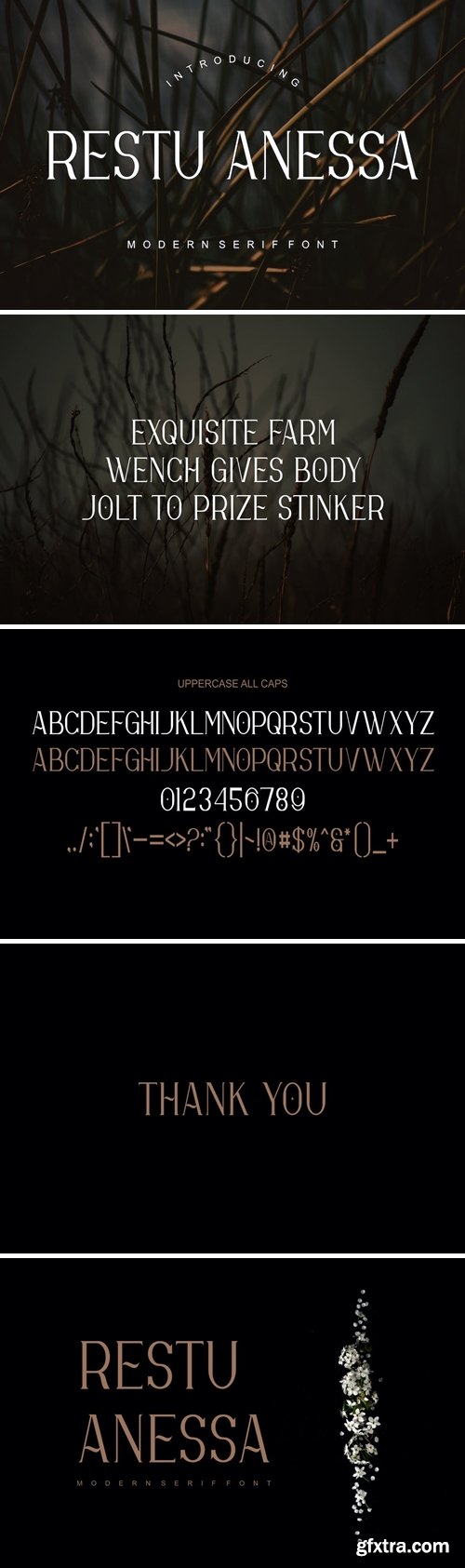
Restu Anessa Fonts Font
ntroducing our new product Roghan Restu Anessa Fonts modern fonts. Roghan Adventure Fonts modern font is a bold and authentic display font. The font is suitable for any branding project like.